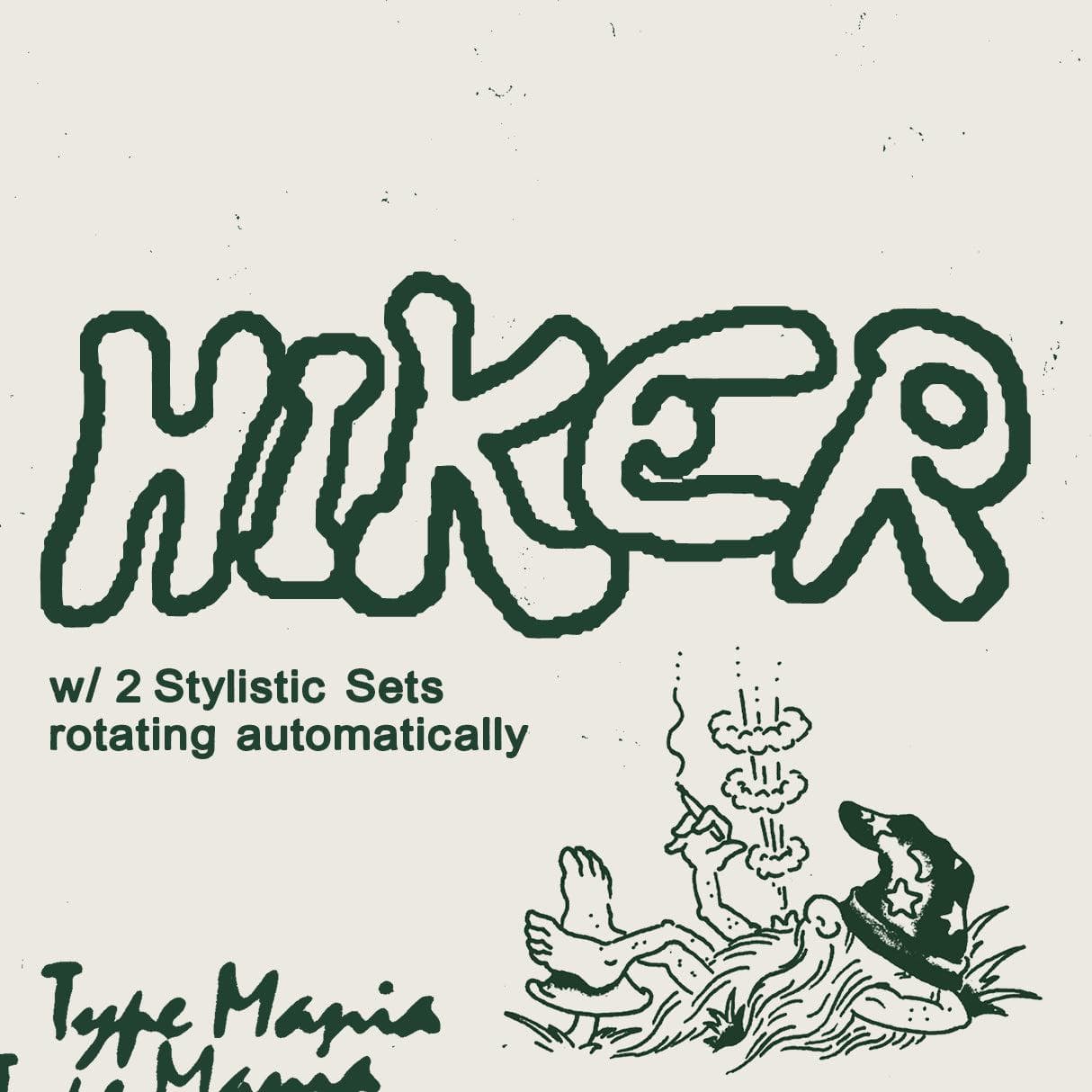
<p><strong>Hiker TM</strong> is your go-to for unique and unconventional handwriting vibes. Operating on the more underground end of the spectrum, this style works well on flyers, posters, branding, and campaigns –provided the client fits the aesthetic. Enjoy 🚬 </p> <p><strong>Zip includes</strong></p> <ul> <li>OTF file</li> <li>TTF file</li> <li>WOFF2 file</li> </ul> <p><strong>OpenType features</strong></p> <ul> <li>2 stylistic sets</li> <li>The font is programmed to automatically shift between the stylistic sets</li> </ul> <p><strong>Languages</strong></p> <ul> <li>Basic Latin</li> <li>Western European</li> <li>Euro</li> <li>Central European</li> <li>Pan African Latin</li> </ul> <p><em>Graphic Design is Easy (with Type Mania)®</em></p>